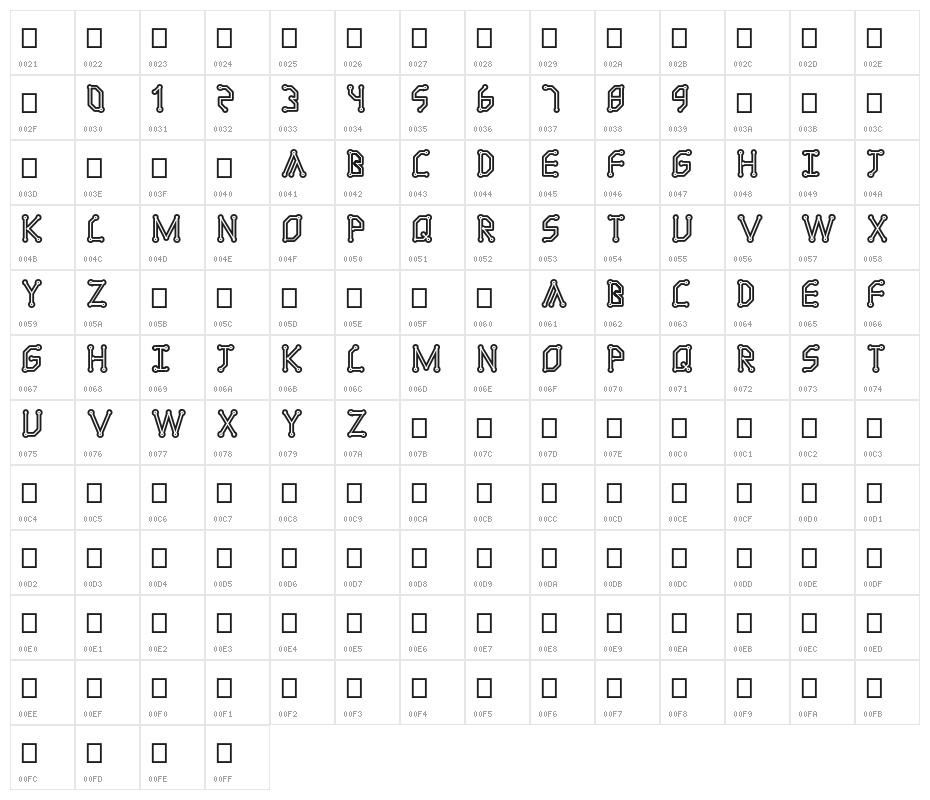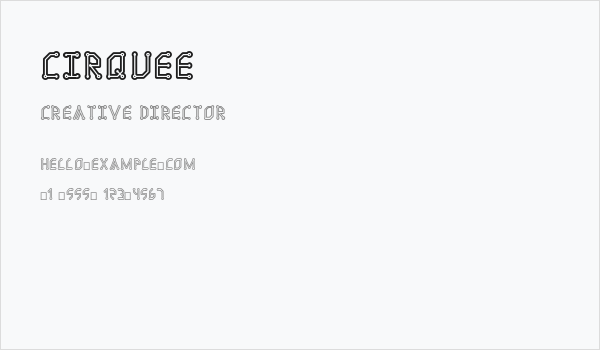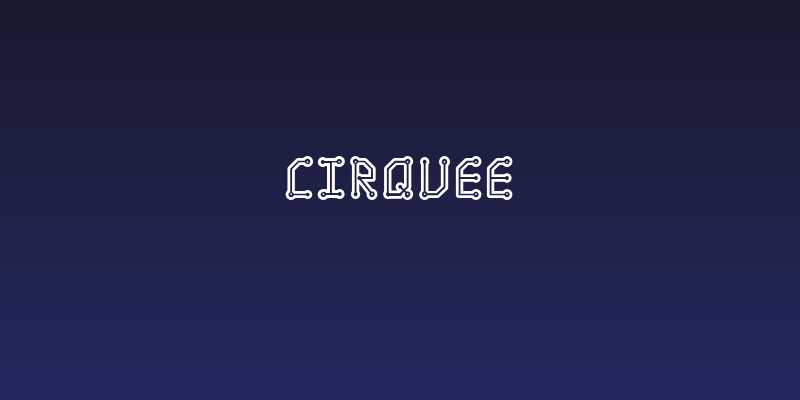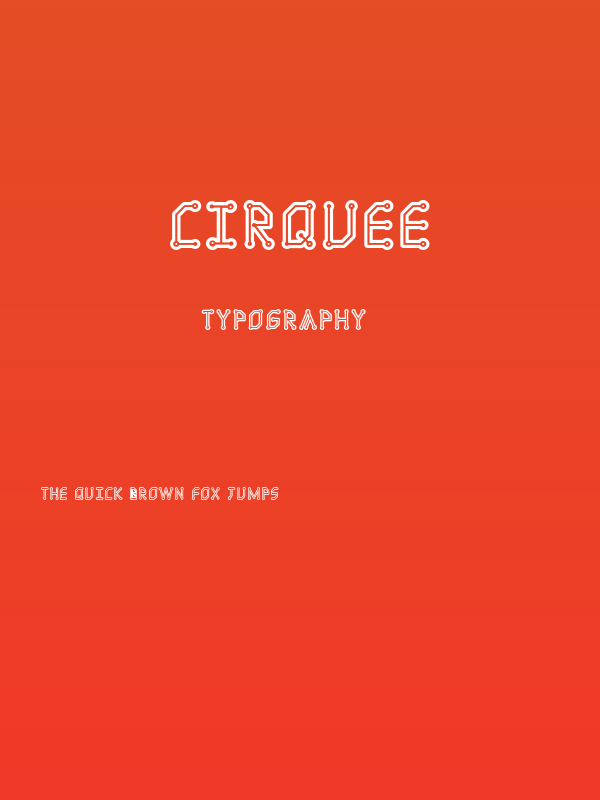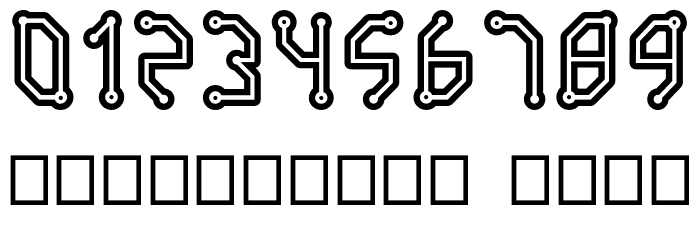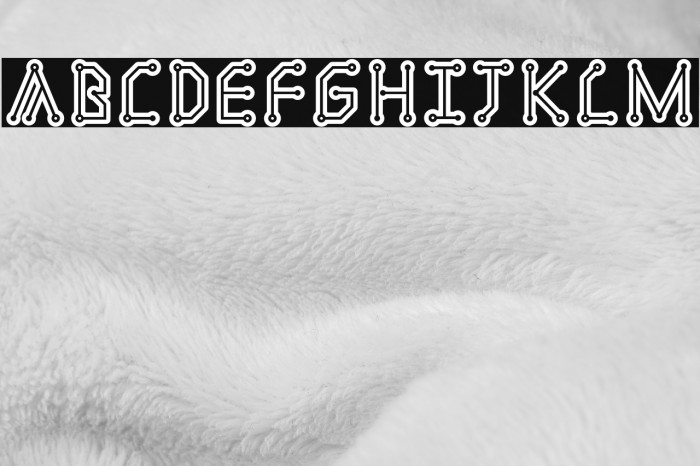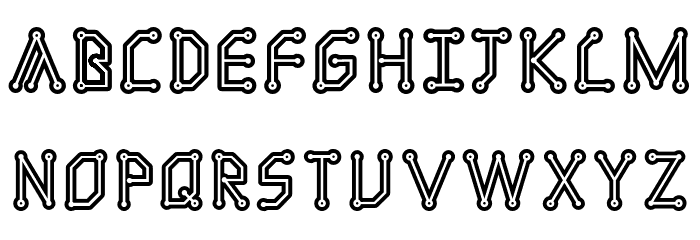
Cirquee Font
Cirquee Description
This font features a unique, circuit-inspired design with a modern and technological aesthetic. Each character is composed of bold lines and rounded corners, resembling electronic pathways or circuit board traces. The uppercase and lowercase letters maintain a consistent style, with geometric shapes and a uniform stroke width that gives a sense of cohesion. Numbers and special characters follow the same design principles, ensuring a harmonious look across all elements. The font's distinct appearance makes it ideal for projects that require a futuristic or tech-savvy feel.
| Proposed Projects | Ideal for technology branding, digital interfaces, sci-fi posters, and electronic product packaging. |